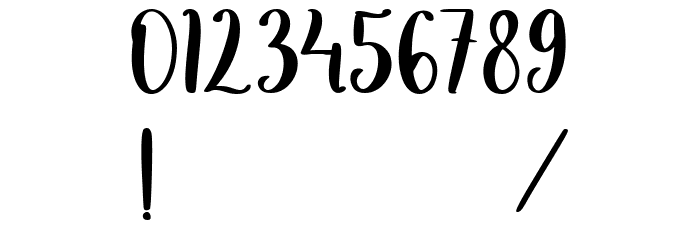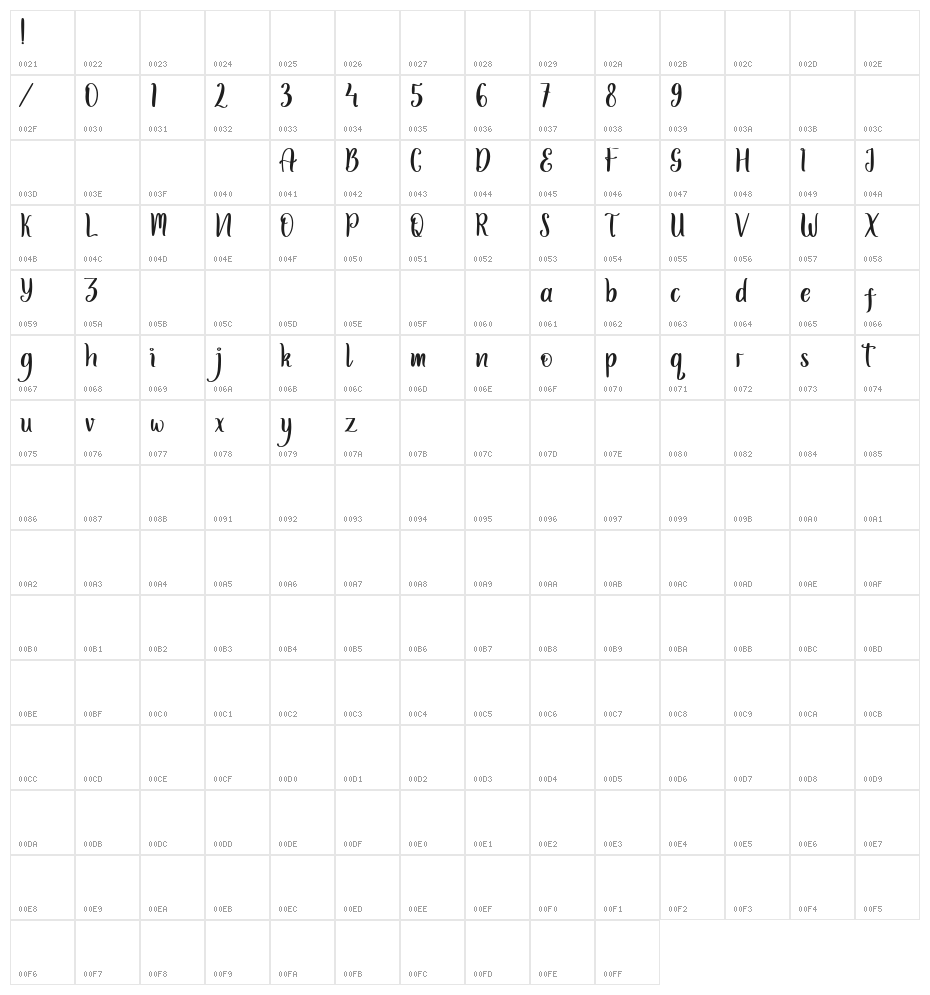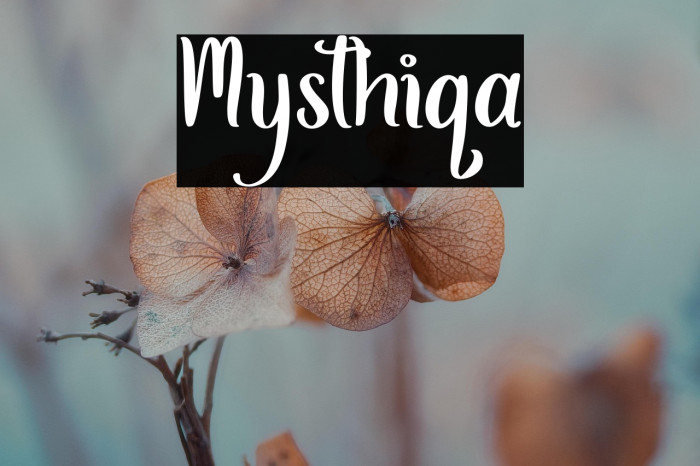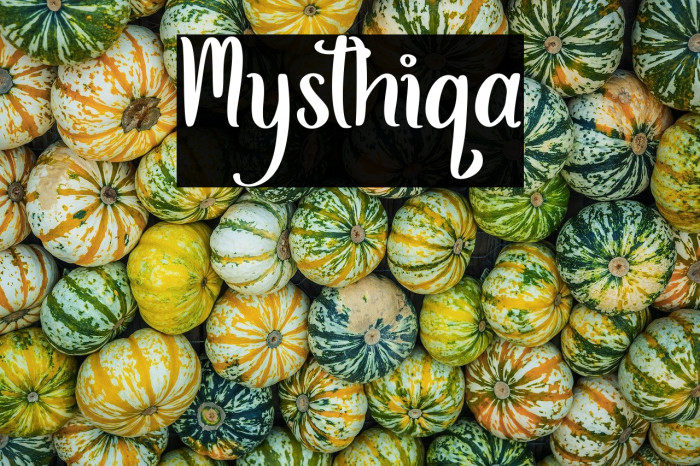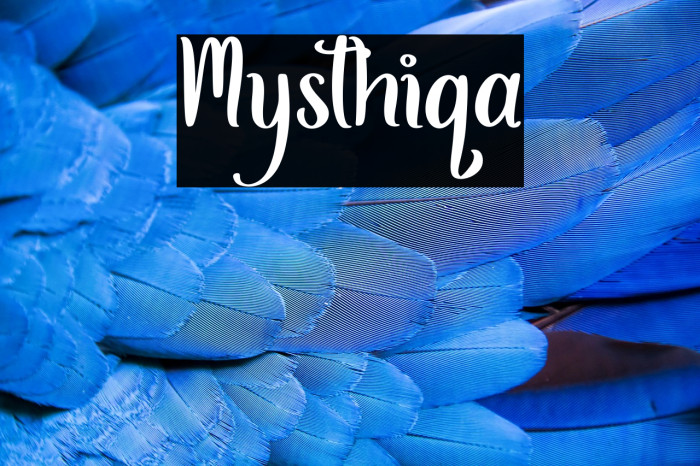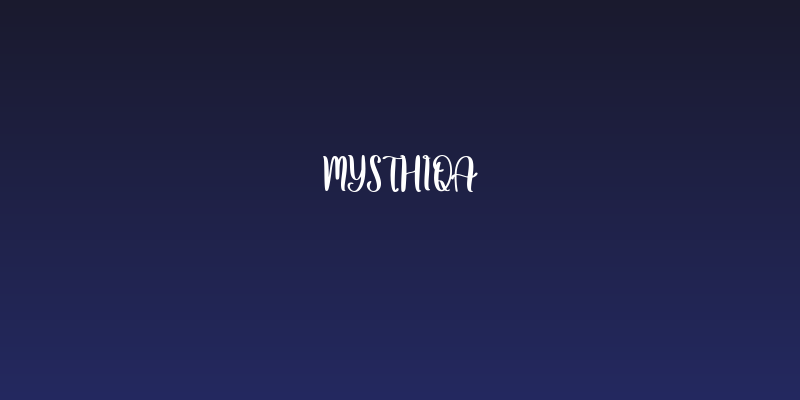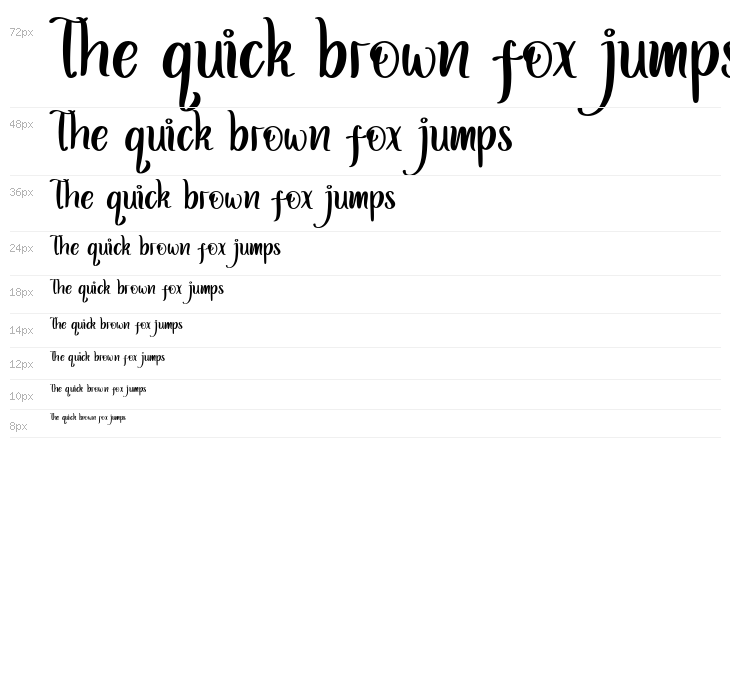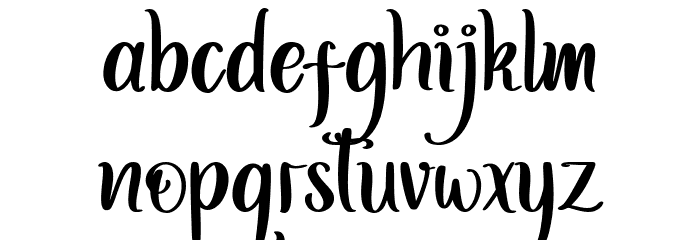
Mysthiqa Font
Mysthiqa Description
This font features a playful and artistic script style with a handwritten feel. The characters exhibit a fluid, flowing design with varying stroke widths, creating a dynamic and lively appearance. The uppercase letters are bold and prominent, while the lowercase letters maintain a consistent rhythm with unique flourishes. The numbers are equally stylized, matching the overall aesthetic of the font. Special characters are creatively integrated, enhancing the font's versatility. This font is ideal for projects that require a personal touch or a creative flair, such as invitations, greeting cards, or branding materials.